Numbers Guidelines Manual
Numbers Guidelines
Letters are the easy part. We were taught what they are, and how to use them, in our earliest experiences with learning. Even before we started school most of us had alphabet books, wooden blocks with letters on them, or magnetized letters that stuck to the refrigerator. Numerals, however, can be trickier – and a little more difficult to master.
Setting Numerals
It’s important to pay attention to the setting of numerals. Studies show that readers tend to distinguish numerals one at a time, whereas they can perceive several letters at once grasping even groups of words. Ambiguities among letterforms are also somewhat less critical because context often suggest to the reader the identity of similar letters. Not so with numerals.
At first glance, ranging numerals may appear to be more legible than their more senior brethren, but a variety of legibility studies have proven that this is not the case: lowercase, or old style, numerals are moderately more legible than ranging numerals when isolated, and considerably more legible when set in groups. In addition to being more legible, many designers and typographers also believe that lowercase numerals are more attractive than the ranging variety
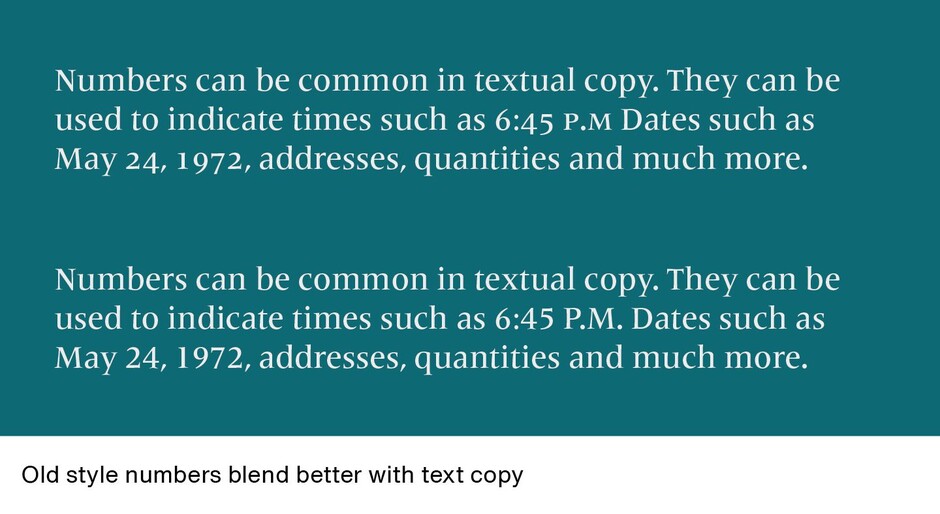
Ranging numerals are great for situations where you want figures to stand out, or when you are setting all-cap copy. When these numbers are used in text composition, however, they are often too conspicuous. The result is that the reader’s eye tends to fixate on the numerals, rather than read the text. Old style numerals, which are specifically designed to blend with textual content, provide information without calling special attention to themselves. They are also ideal for page folios, dates, in conjunction with small caps, and in other places where you want the numerals to be discreet.
Sometimes uppercase and lowercase numerals can be combined in the same piece. Parts lists and catalogs are a good example: Ranging figures can be used for item numerals, and the less obtrusive lowercase for dates, measurements and other data.
Some Numbers Guidelines
- Numerals are always spelled out when they begin a sentence. In text copy, descriptive numerals of ten and under should be spelled out. Various editorial styles may call for the spelling of higher numerals except when they refer to specific sequences, for example, the book had eighty pages and on page 64… Specific “house styles” should always take precedence in this area.
- Use the minimum number of figures in date ranges and separate them with an en dash, as in 1950–55.
- Small caps should be used in 55BC (or BCE) and AD 114. It is acceptable to use them with or without periods. [Note: Set in small caps.]
- Percent should be spelled out where it occurs singly in text matter and when used in conjunction with a written number, as in four percent. The % symbol should be used with figures, 100% of the time.
- When figures are preceded by the dollar sign and there are no cents, the decimal point and zeros may be omitted. Otherwise, there is a $5 fine.
- In columns, figures with decimals align vertically on the decimal; otherwise figures should right align.
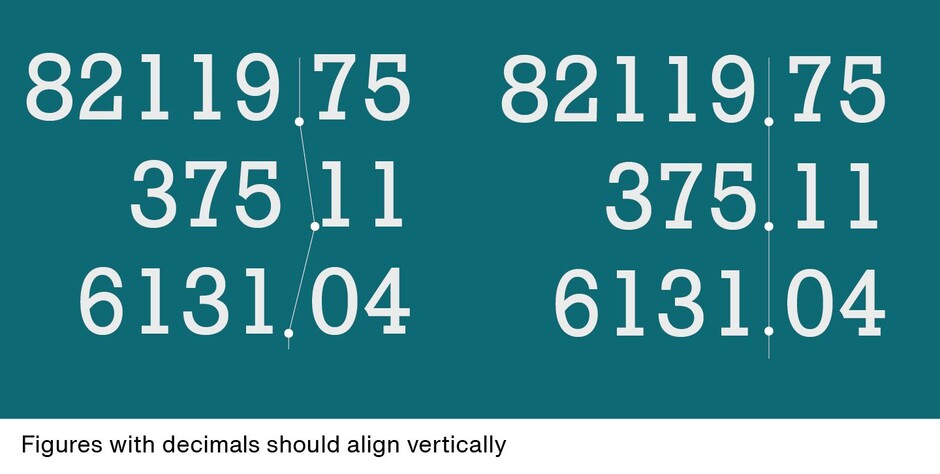
- At times adjustments need to be made when setting numerals with bullets, dashes, parentheses and brackets. These characters are designed to center-align to cap or lowercase characters. Depending upon what kind of number they are use with, they may have to be moved up or down horizontally to properly align with the numerals being used.
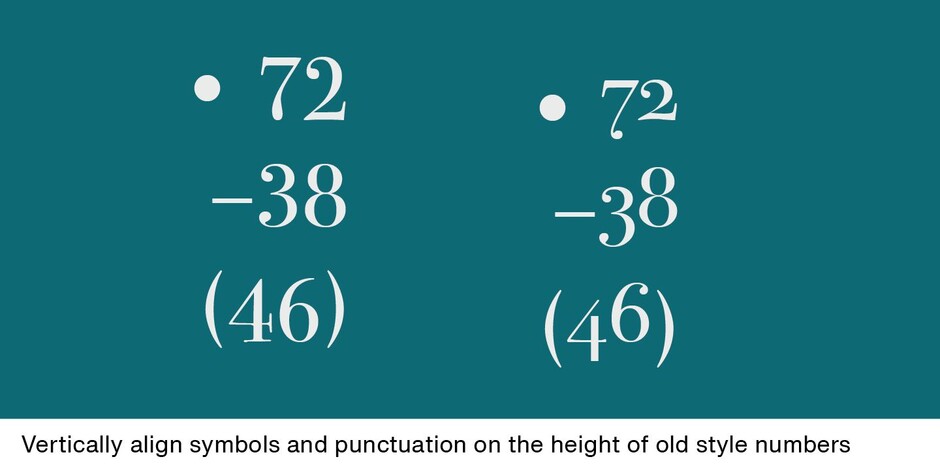
How About Fractions?
Numerals are not limited to the single figures zero though nine. There are also fractions to content with. Graphic designers are generally confronted with three kinds of fractions: em fractions, en (or “nut”) fractions and solidus (slash) fractions.
Em Fractions
Em fractions are the most common. They are built from superior and inferior numerals separated by a fraction bar. If they are designed to be tabular, em fractions fit on the em space. Three em fractions, ¼ ½ ¾ can be found in most fonts. Some also offer 1/8 1/3 3/8 5/8 2/3 7/8 fractions. [Note: Set the fractions in Helvetica Now, which should have them as single characters.]
En Fractions
En fractions are built from superior and inferior numerals separated by an en dash. These are usually pretty difficult to construct and require a lot of kerning and space adjustment to get the numerators and denominators into position.
Solidus Fractions
These are built by setting superior and inferior numerals separated by a forward slash – also called a virgule, slant or whack. (Bet you didn’t know that last one.) The problem with this type of fraction is that the slash is almost always too heavy and makes the fractions look awkward.
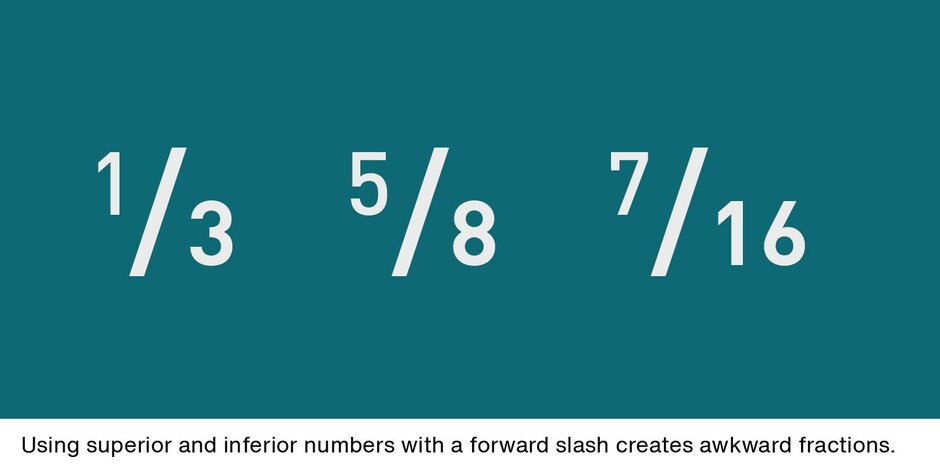
If you use fractions often, most design software provides simple automated functions to create just about any kind of fraction – if the font contains the necessary glyphs. They are much easier to use than trying to build fractions, yourself. A quick Google® search will net you quick and easy steps for creating them.